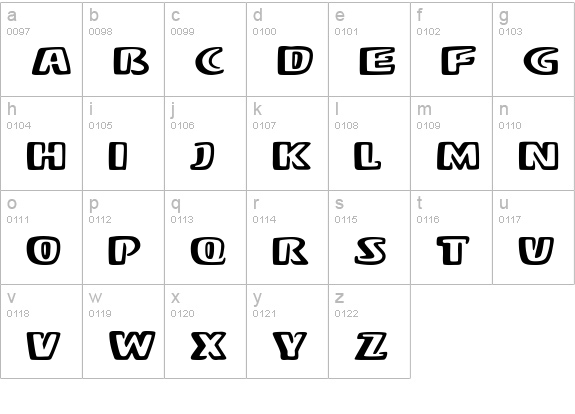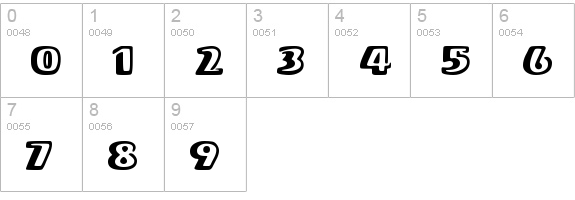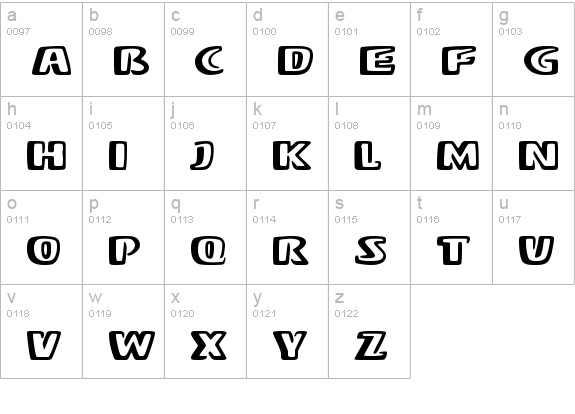
Stereo MF Font Details
Stereo MF font is a modern and stylish typeface that exudes sophistication and elegance. Its sleek lines and contemporary design make it perfect for a wide range of projects, from branding to editorial design. The unique geometric shapes and crisp edges of Stereo MF font give it a distinctive and eye-catching look that is sure to make your text stand out. What's even better is that Stereo MF font is available for free download at FontsMarket.com. This means you can easily access this stunning font and use it in your projects without any cost. Whether you're working on a professional design project or simply looking to add a touch of flair to your personal creations, Stereo MF font is the perfect choice. Download it today and elevate your designs with this exceptional typeface.